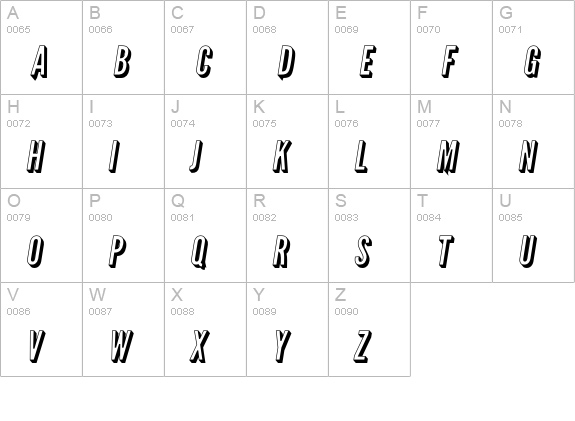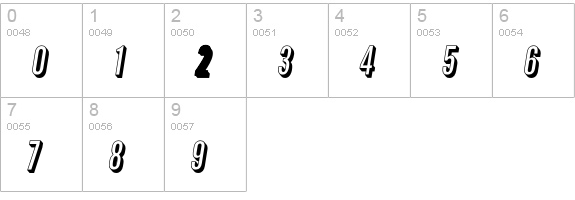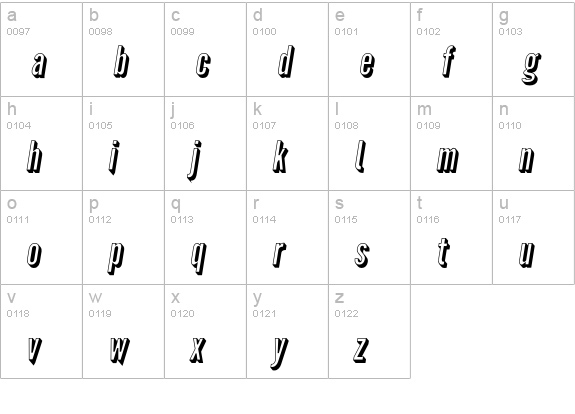
Warsaw Gothic Shadow Oblique is a distinctive, italic variant in the Warsaw typeface family \xE2\x80\x94 well suited to design and typography projects.
Introducing Warsaw Gothic Shadow Oblique, a captivating and enigmatic font that exudes an aura of mystery and intrigue. With its bold and slanted appearance, this typeface effortlessly merges elements of gothic and shadow styles, resulting in a truly unique and mesmerizing design. The Warsaw Gothic Shadow Oblique font is a striking choice for projects that demand attention and leave a lasting impression. Its sharp edges and dramatic shadows add depth and dimension to any text, elevating it to a whole new level of visual impact. Whether used for headlines, logos, posters, or any other creative endeavor, this font commands attention and captivates the viewer's imagination. One of the most remarkable aspects of the Warsaw Gothic Shadow Oblique font is that it is freely available to download at FontsMarket.com. This means that you can effortlessly incorporate this stunning typeface into your projects without any cost or hassle. With just a few clicks, you can access this incredible font and unlock its potential to enhance your designs. Designed with meticulous attention to detail, the Warsaw Gothic Shadow Oblique font offers a wide range of characters and symbols, ensuring versatility and flexibility in its usage. It effortlessly adapts to various design styles and themes, making it an ideal choice for both modern and vintage-inspired projects. Whether you're a graphic designer seeking a captivating font to bring your visions to life or an individual looking to add a touch of intrigue to personal projects, the Warsaw Gothic Shadow Oblique font is a powerful and mesmerizing choice. With its free availability at FontsMarket.com, it has never been easier to access this extraordinary font and unleash its creative potential. So, don't miss out on the opportunity to elevate your designs and download the Warsaw Gothic Shadow Oblique font today.